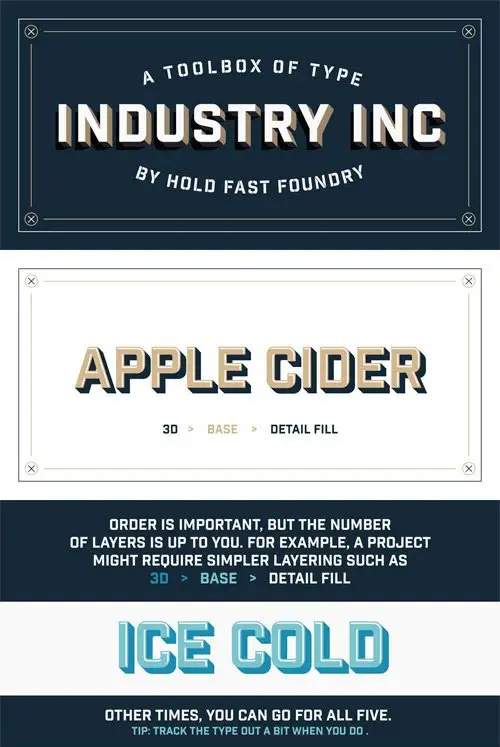
Industry Inc is a collection of type based on the bold uppercase style of the Industry family. The typeface comprises numerous stand-alone styles along with a layered type system. Think of it as a toolbox equipping designers with extensive typographic options and combinations. What will you make? Want to know more? Look through the manual or watch a video tutorial on layering. Note: The Stencil and Cutline styles are not meant to be layered.